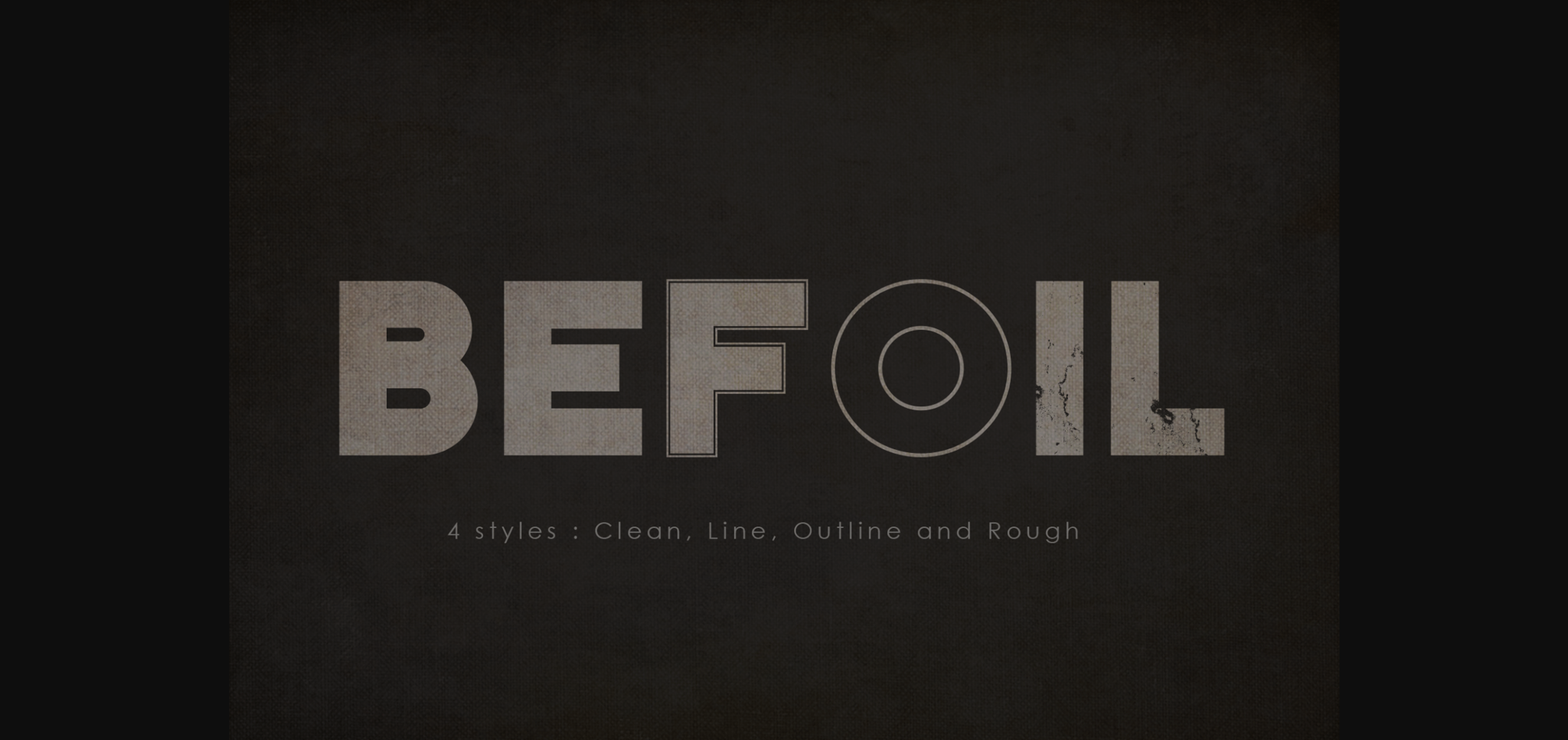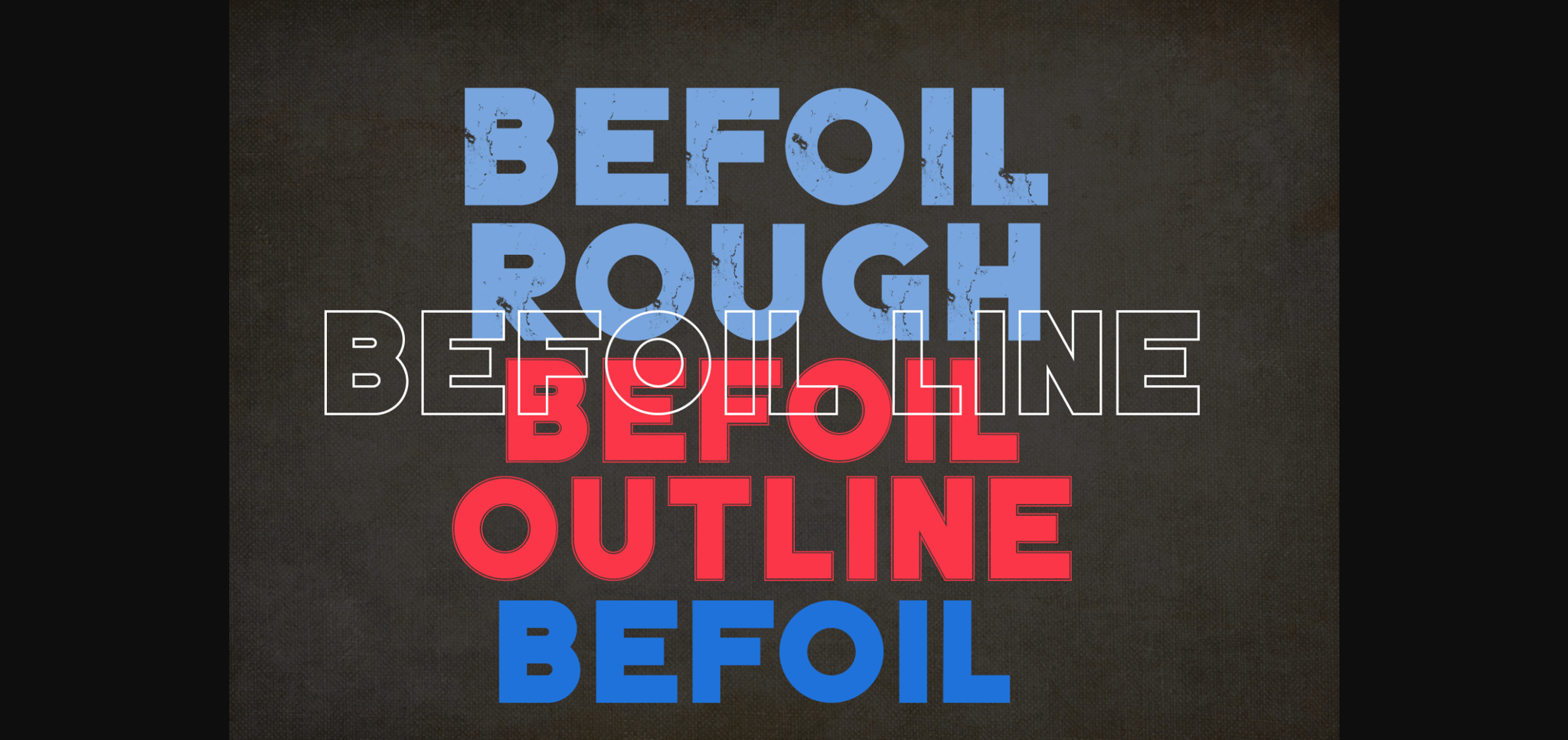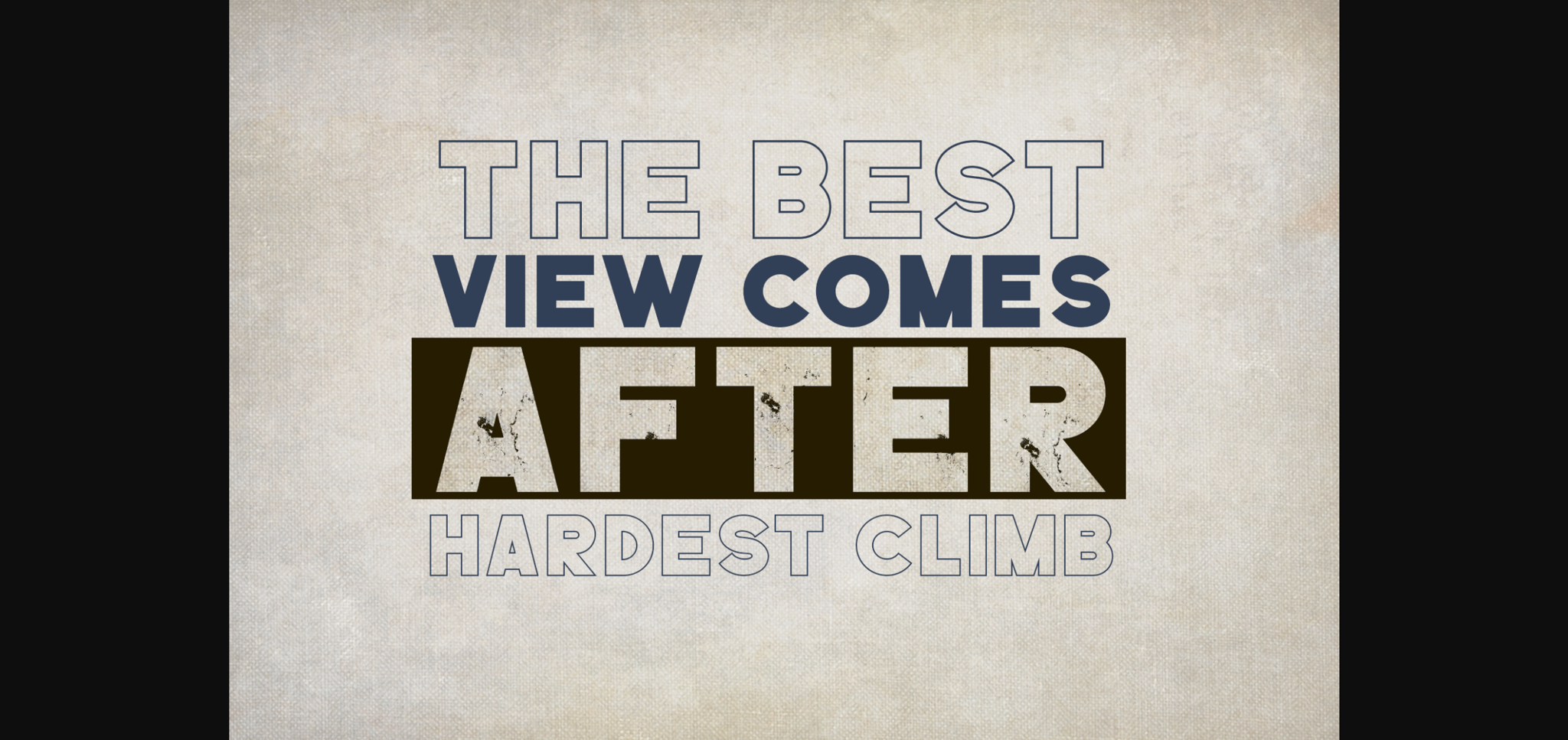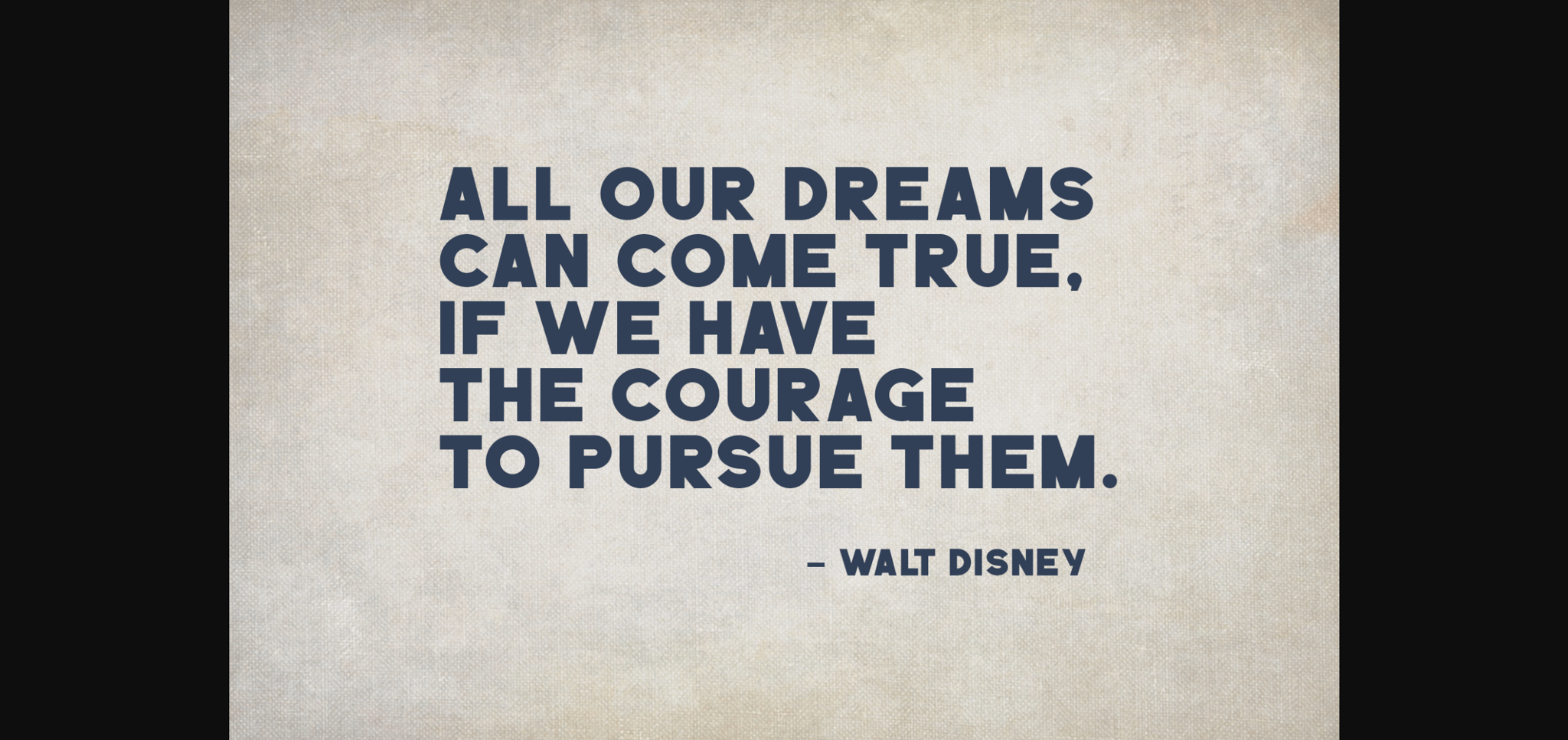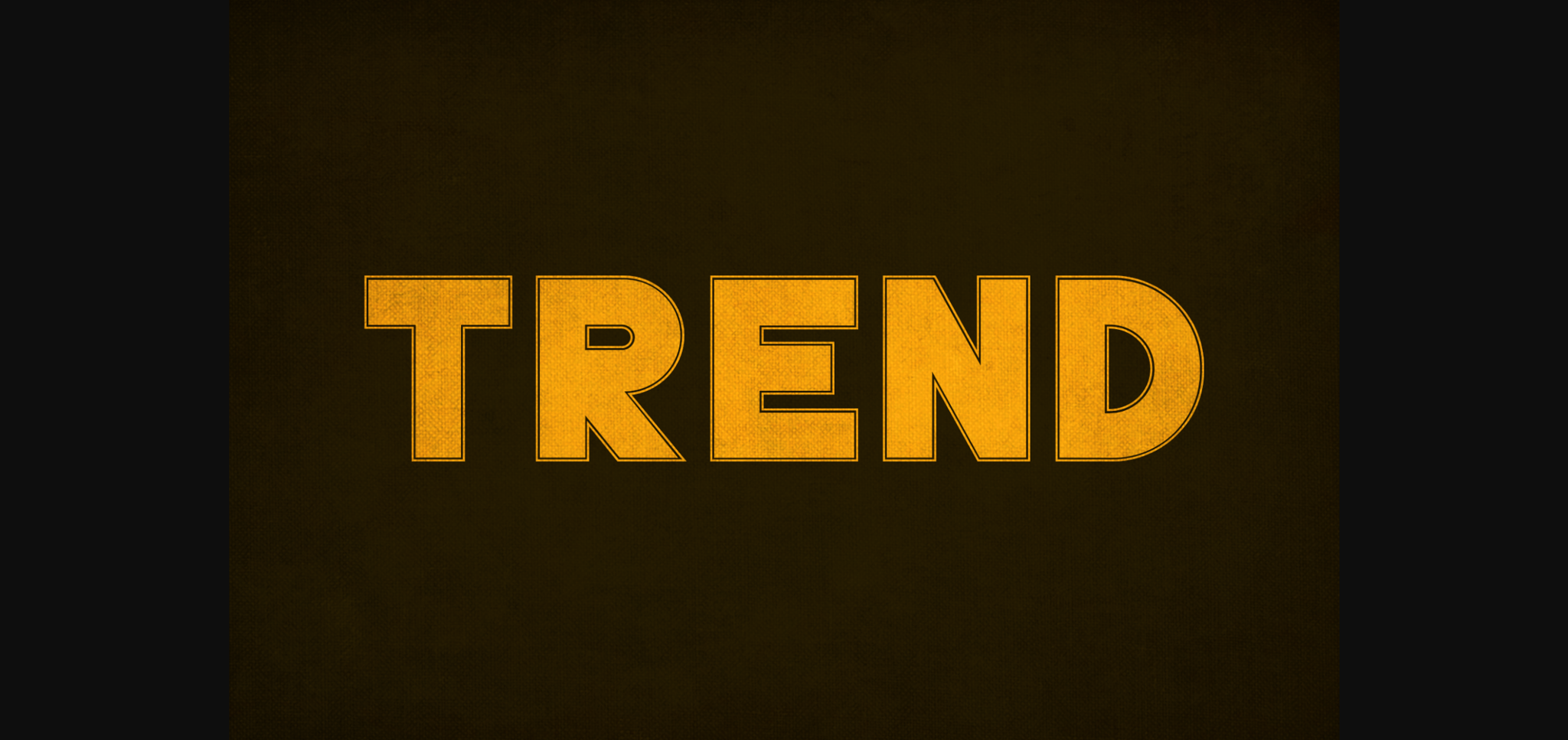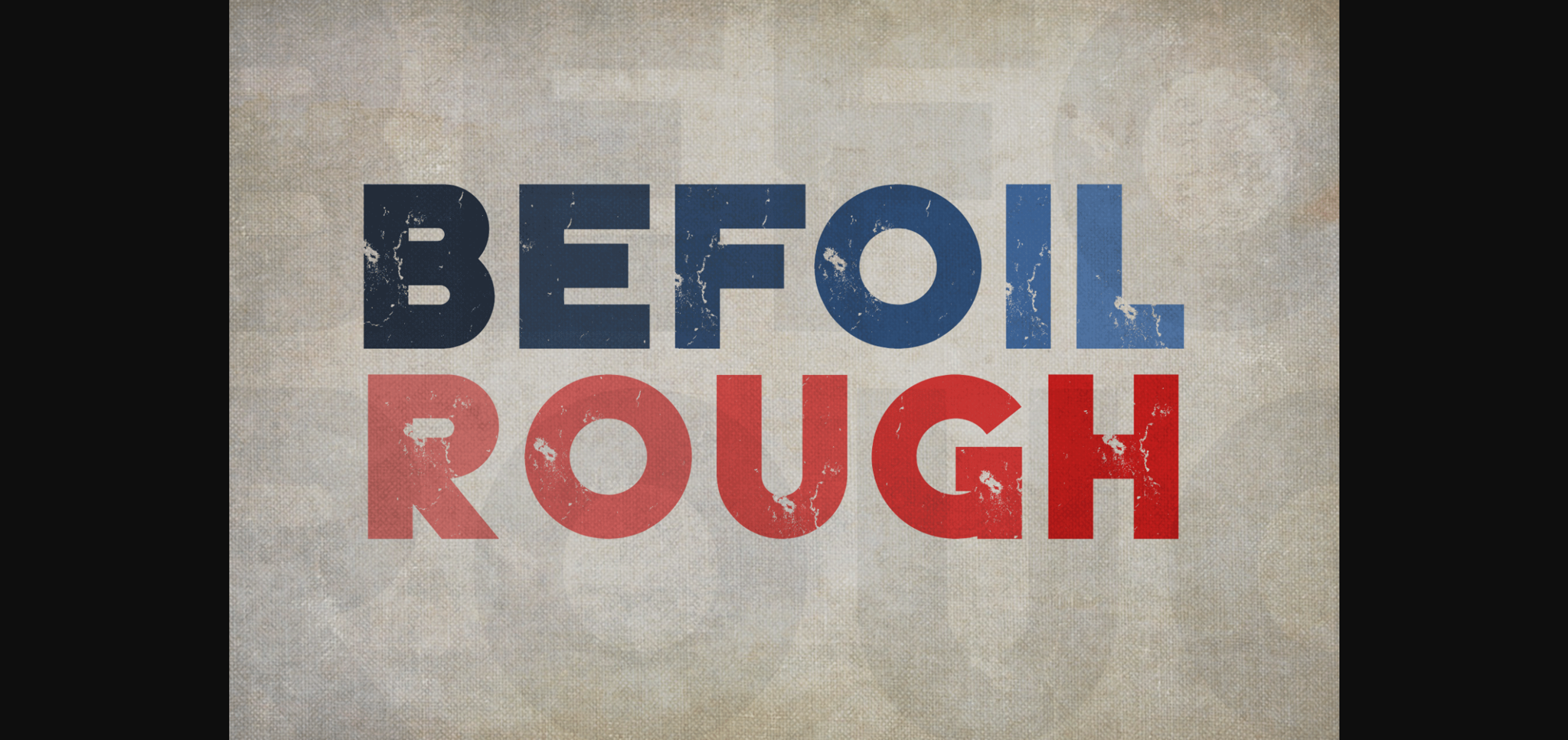
HomeSans Serif FontsBefoil Font Sans Serif Fonts Befoil Font FacebookXPinterestWhatsApp 1 of 8 ... Befoil Font Poster 2... Befoil Font Poster 3... Befoil Font Poster 4... Befoil Font Poster 5... Befoil Font Poster 6... Befoil Font Poster 7... Befoil Font Poster 8... About Befoil Font Befoil is a bold sans serif font, carefully handcrafted to become a true favorite. This font will look outstanding in any context, whether it’s being used on busy backgrounds or as a standalone headline! DOWNLOAD NOW People also explored Superscore Brigherdz Font Summer Magic Font Christmas Soul Font Pumpkins Font Australia Font Hallo Mandala Font Malisia Script Font PAG Liberta 402 0 TagsBefoilBefoil Font Previous articleReef FontNext articleRomelia Font LEAVE A REPLY Cancel reply Comment: Please enter your comment! Name:* Please enter your name here Email:* You have entered an incorrect email address! Please enter your email address here Website: Save my name, email, and website in this browser for the next time I comment. Personal Use Free Super Discount Personal Use Free Read more about this font Kaysan Personal Use Free Read more about this font Bruttney Personal Use Free Read more about this font Quick Count Personal Use Free Read more about this font BLOG Free Fonts Risk: Why Free Fonts Can Be Dangerous for Designers Free Fonts Risk: Why Free Fonts Can Be Dangerous for Designers Using free fonts is a common practice in web and graphic design. However, the... Top 7 Google Fonts Alternatives for Faster and Privacy-Friendly Web Design (2025) Best Fonts for T-Shirt Design – Top 2025 Picks Fonts That Capture the Spirit of New York City